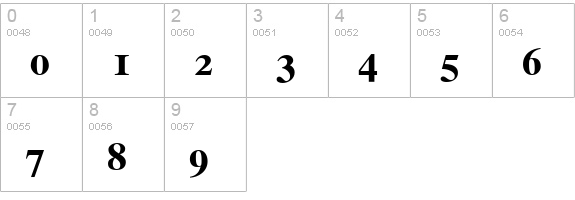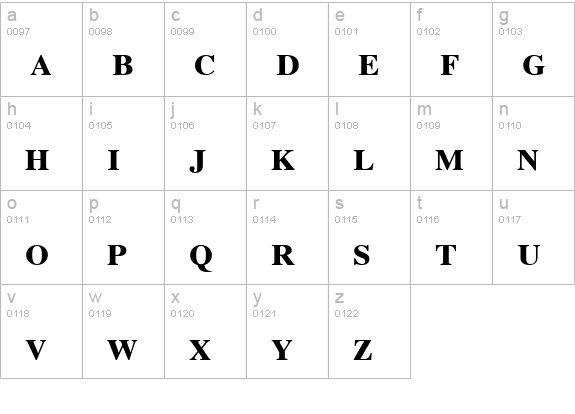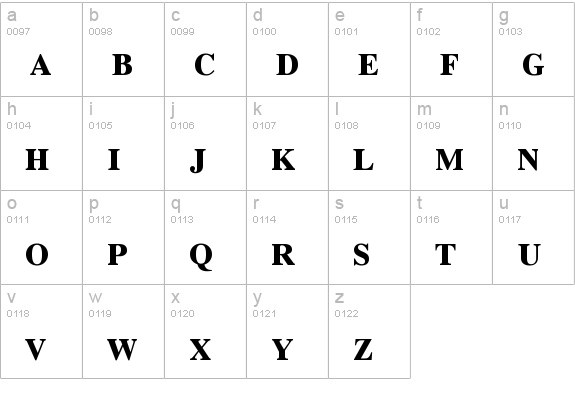
Greco OldStyle SSi Bold Small Caps is a strong, high-contrast variant in the Greco typeface family \xE2\x80\x94 well suited to headlines, attention-grabbing titles, and strong calls-to-action.
Greco OldStyle SSi Bold Small Caps font is a classic and elegant typeface that exudes sophistication and timelessness. Its bold weight and small caps design make it perfect for adding emphasis and style to your projects. The font's old-style aesthetic gives it a touch of vintage charm, making it versatile for a wide range of design applications. The best part about Greco OldStyle SSi Bold Small Caps font is that it is available for free download at FontsMarket.com. This means you can easily access this high-quality font without any cost, making it a valuable addition to your font library. Whether you're designing a logo, creating print materials, or working on a digital project, Greco OldStyle SSi Bold Small Caps font is sure to elevate your design with its timeless appeal and bold presence.